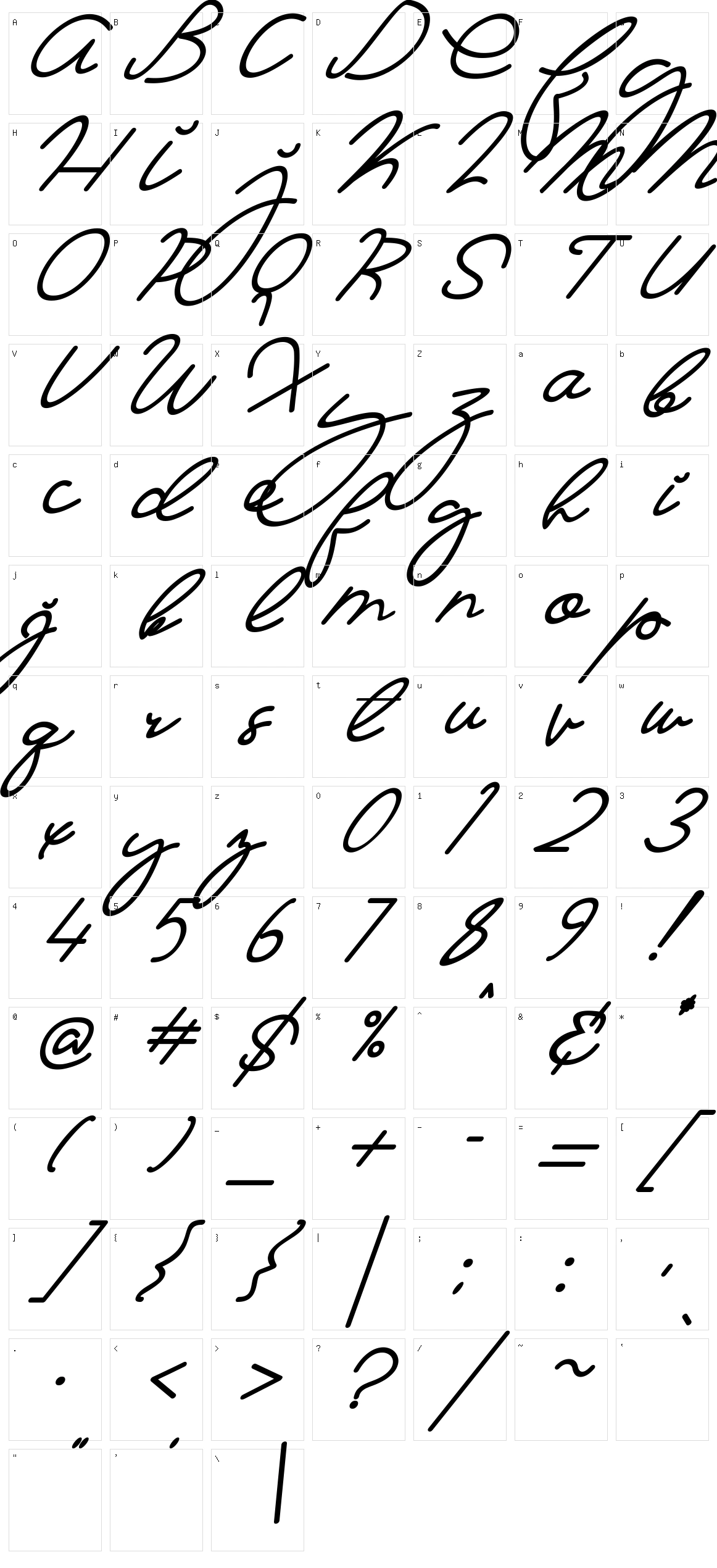
The free font Ma Fille is carefully designed by aldedesign, showcasing a thoughtful balance of creativity and usability and falls under the Script font style. When you download the ZIP file, it contains only 82.62 KB of font files, making it lightweight and quick to download. Please review the license details below to understand permitted usage and distribution rights. If license information is not available, we recommend using this font for personal projects only or contacting the author directly for commercial usage permissions.